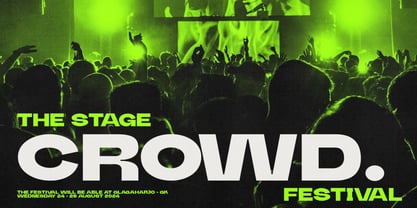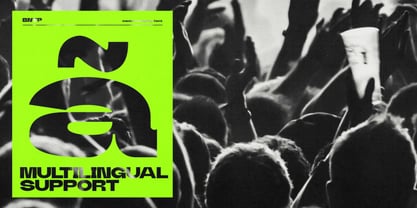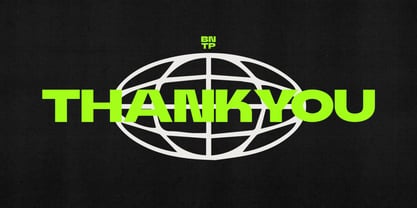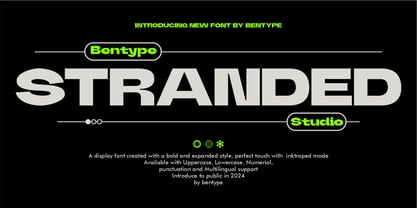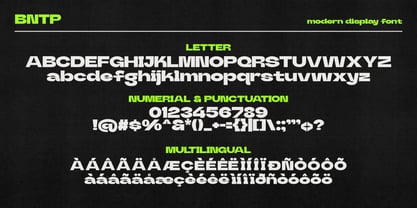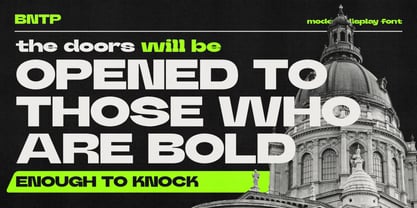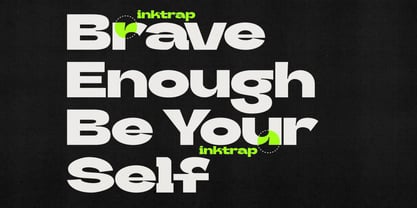
Stranded
by Bentype
The Stranded Font Family was designed by Muhammad Farkhan and published by Bentype. Stranded contains 1 styles.
Stranded - Inktrap Display Font is Inktraped bold font style or font weight that is characterized by exceptionally thick and heavy letterforms. Extra bold fonts are often used for emphasis, headlines, or to grab the reader's attention due to their substantial and heavy appearance. Suitable for use as a headline, poster design, tshirt, event design, etc. Features : Uppercase & lowercase Numbers and punctuation Multilingual Support Feel free to contact us if you have any questions..
Designers: Muhammad Farkhan
Publisher: Bentype
Foundry: Bentype
Design Owner: Bentype